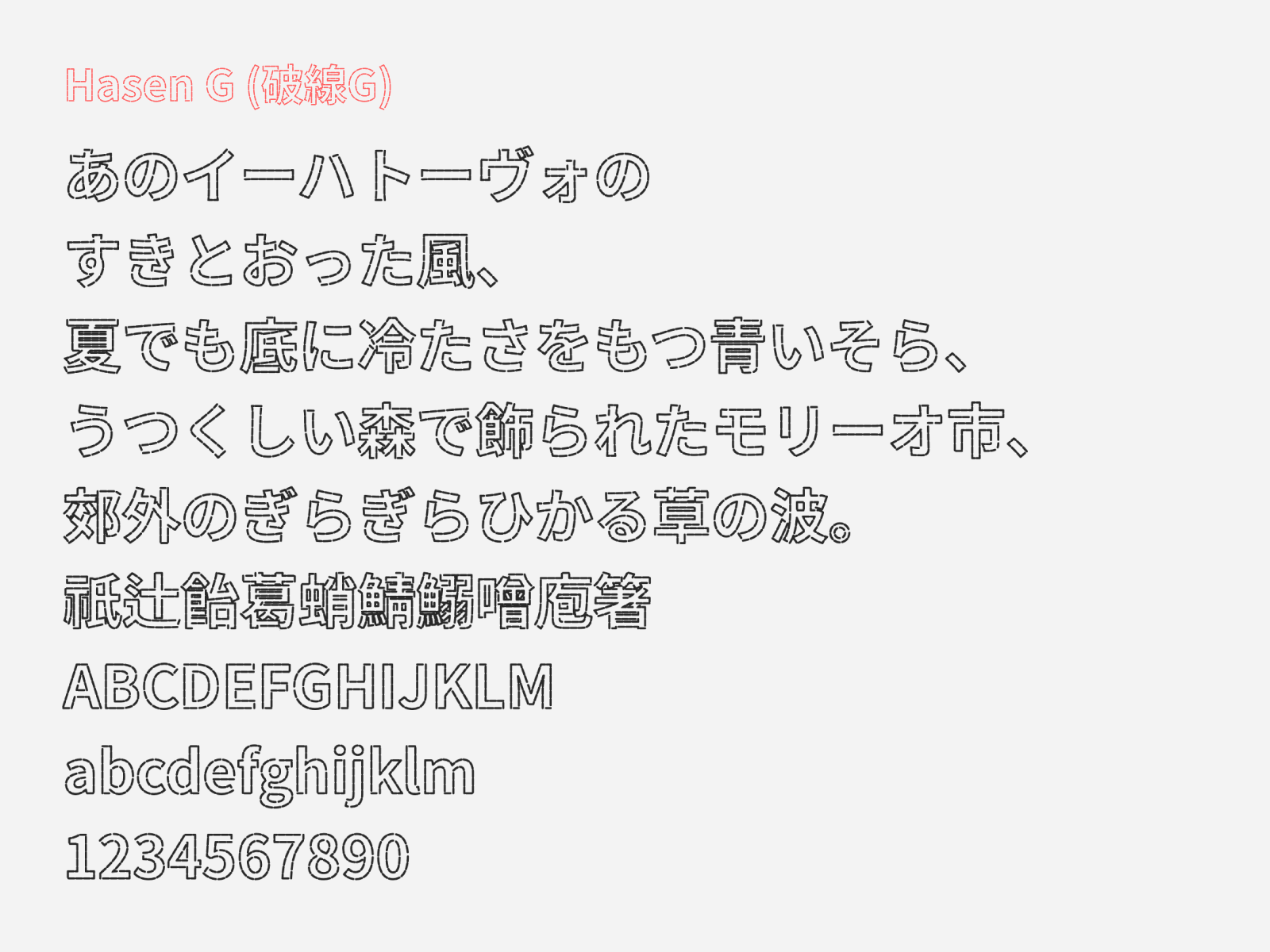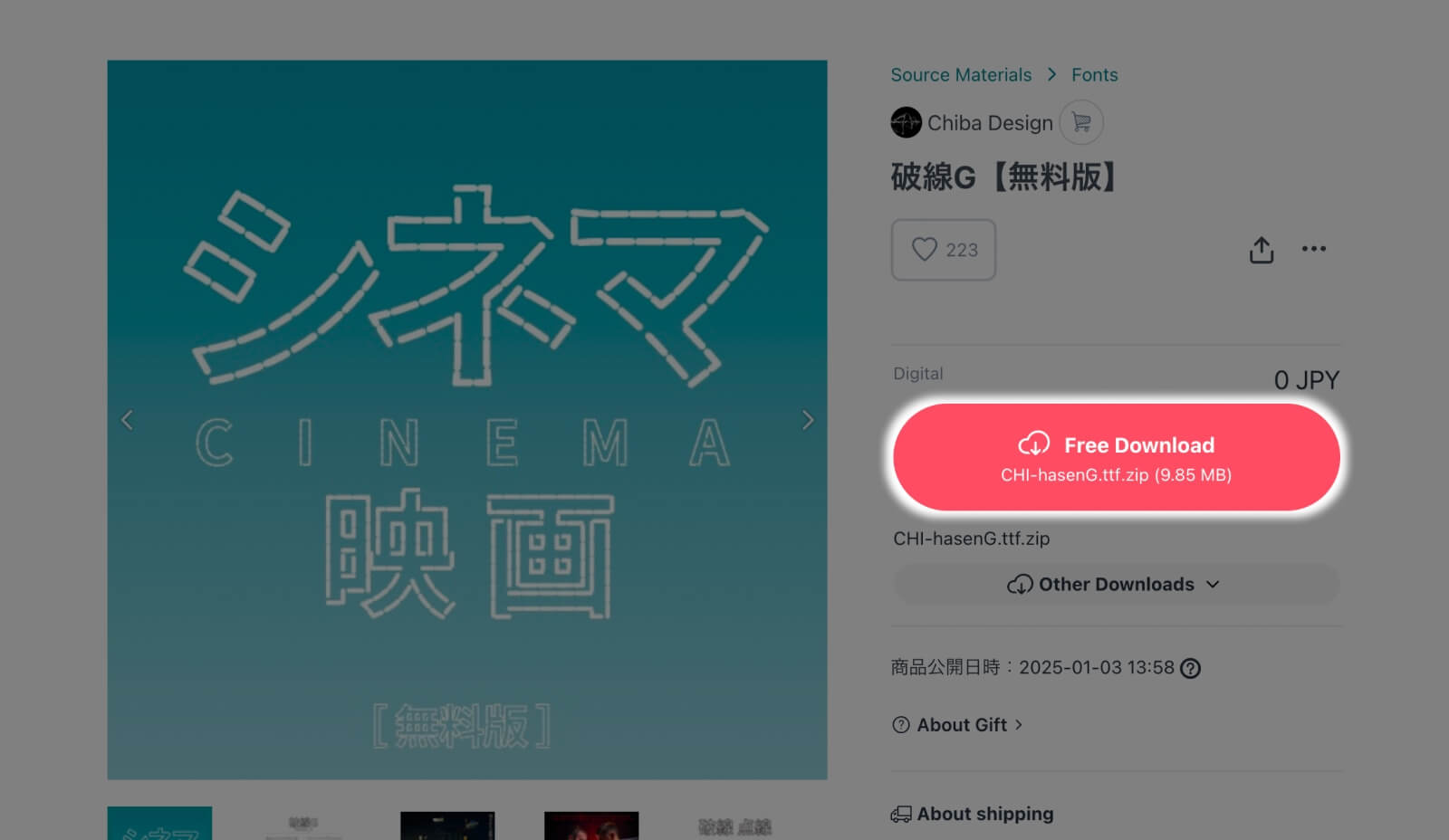
Hasen G
Hasen G (破線G) is a free Japanese display font, modified based on the open-source font Source Han Sans by Adobe. The name is the combination of the word 破線, which means “dashed line,” and the G which stands for Gothic (ゴシック). Developed by Chiba Design, they ran the source material through filter processing in Glyphs, transforming its clean gothic strokes into a perforated, stitched outline effect — as if each character were bordered by a dotted sewing-machine line (ミシン目の縁取り). The result is bold, eye-catchy and giving a tactile, print-like feel.
This is a font suitable for headlines. The perforated edge gives it a punchy, crafted quality that works beautifully in poster design, event flyers, manga title cards, or any layout that needs strong type with personality. As for body type, this font might not do well as its design will make it really hard to read in smaller sizes in longer sentences.
Hasen G’s character coverage is substantial at approximately 8,200 characters, including JIS Level 2 kanji, hiragana, katakana, and alphanumerics. Besides that, it supports Cyrillic and Latin scripts. Hasen G is free for both personal and commercial use under the SIL Open Font License 1.1, inherited from its Source Han Sans roots.